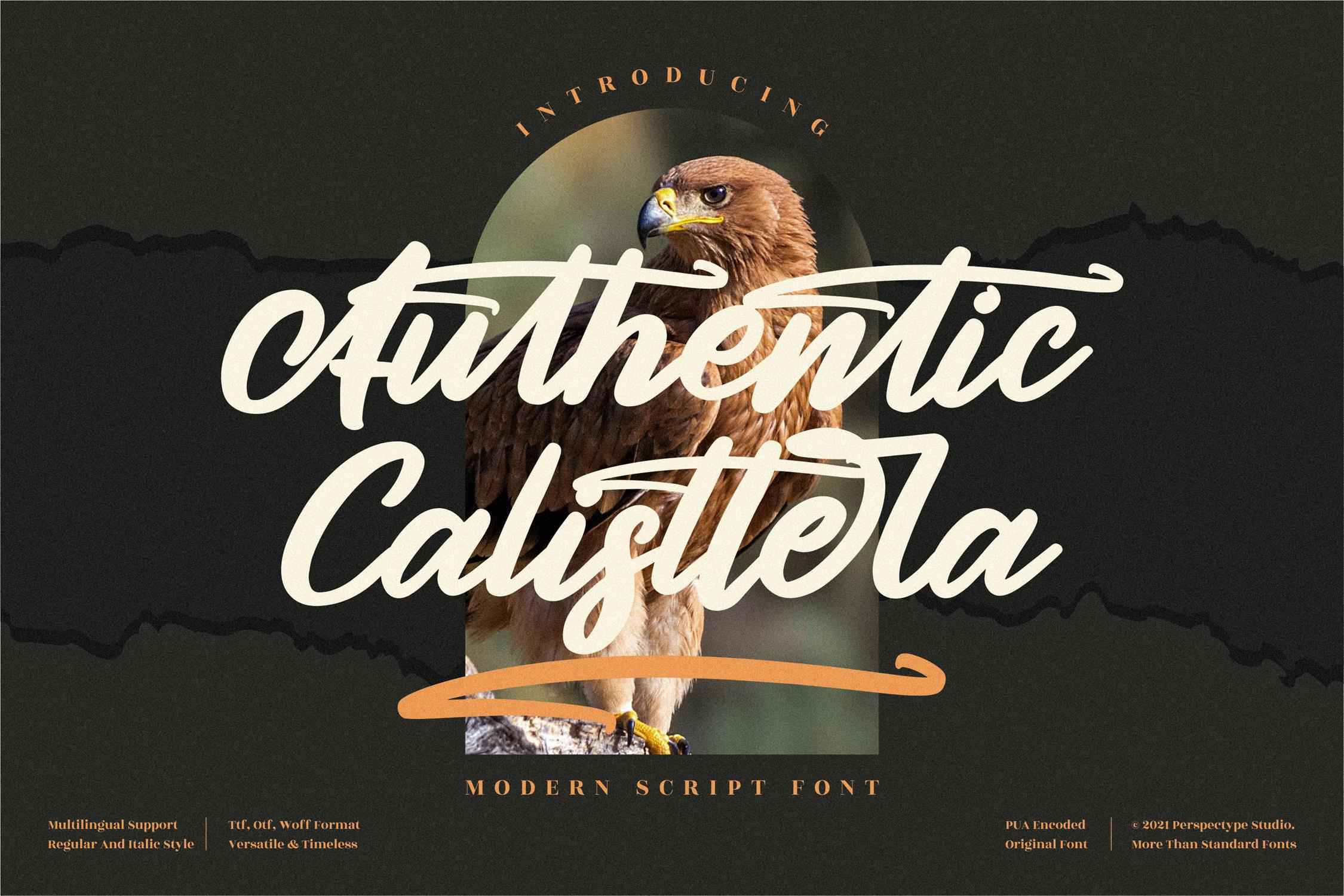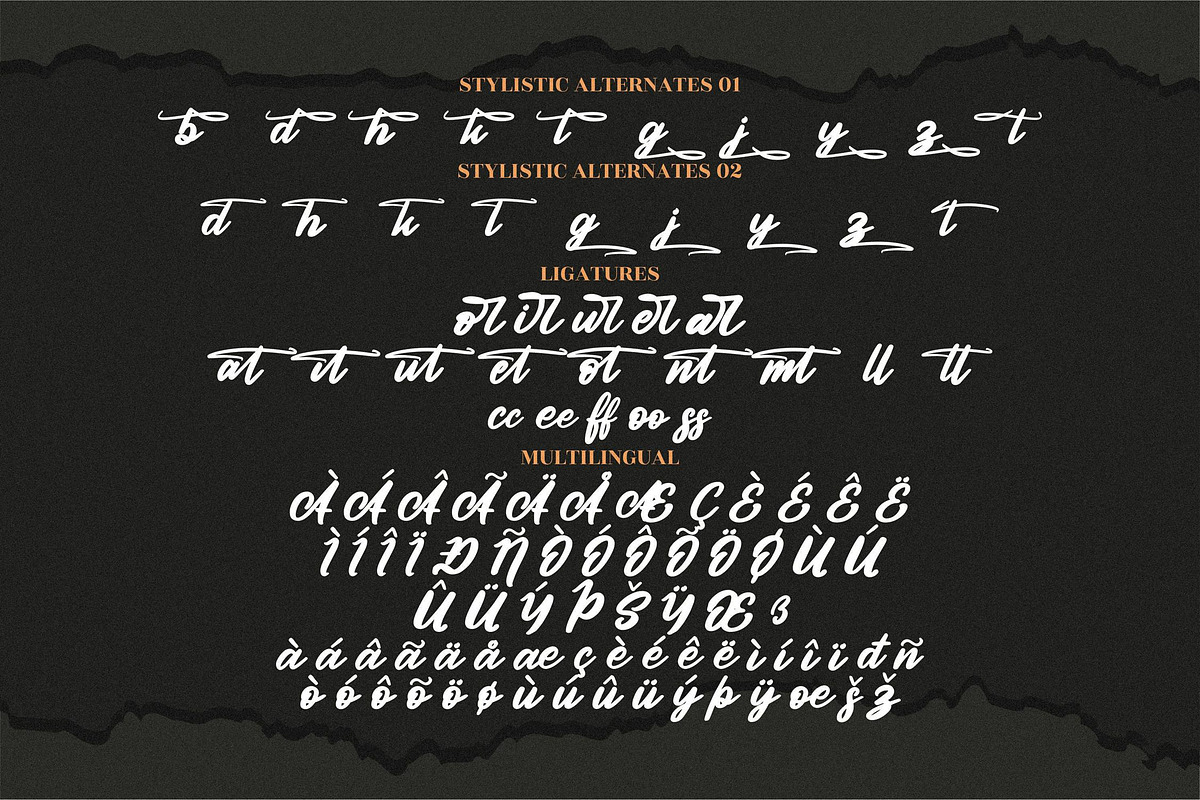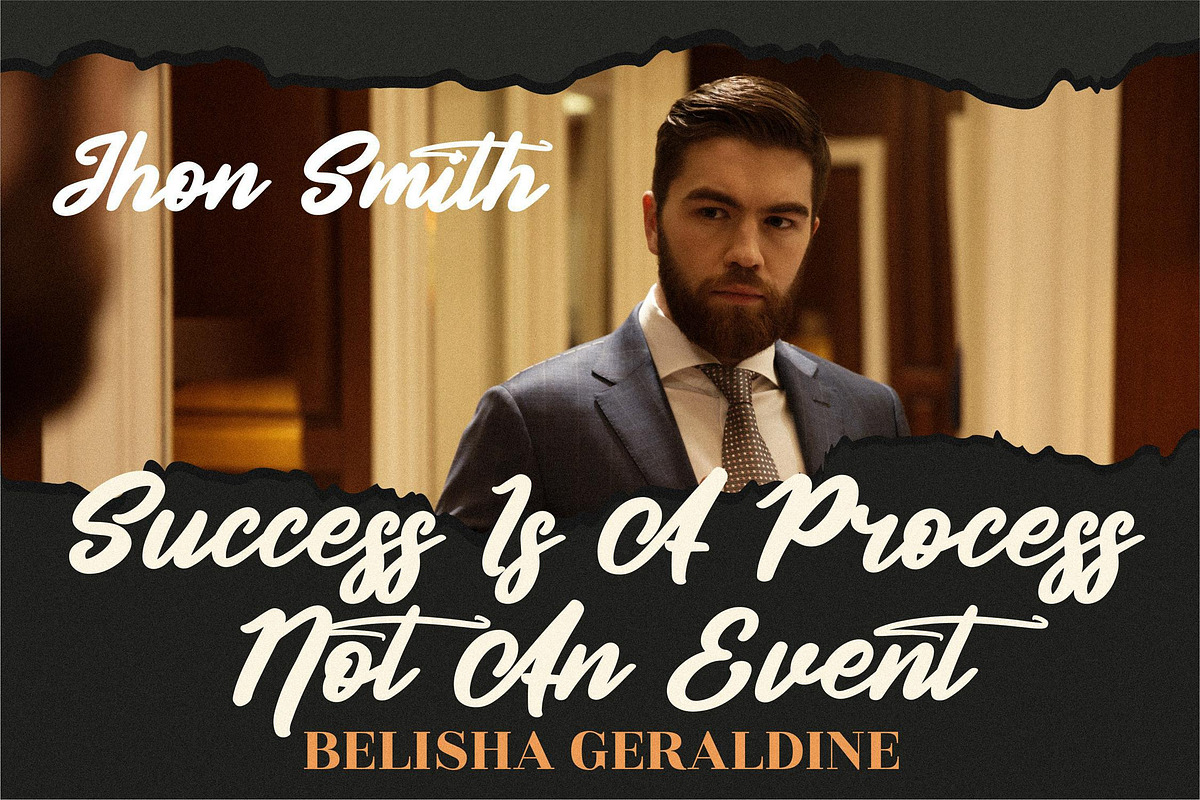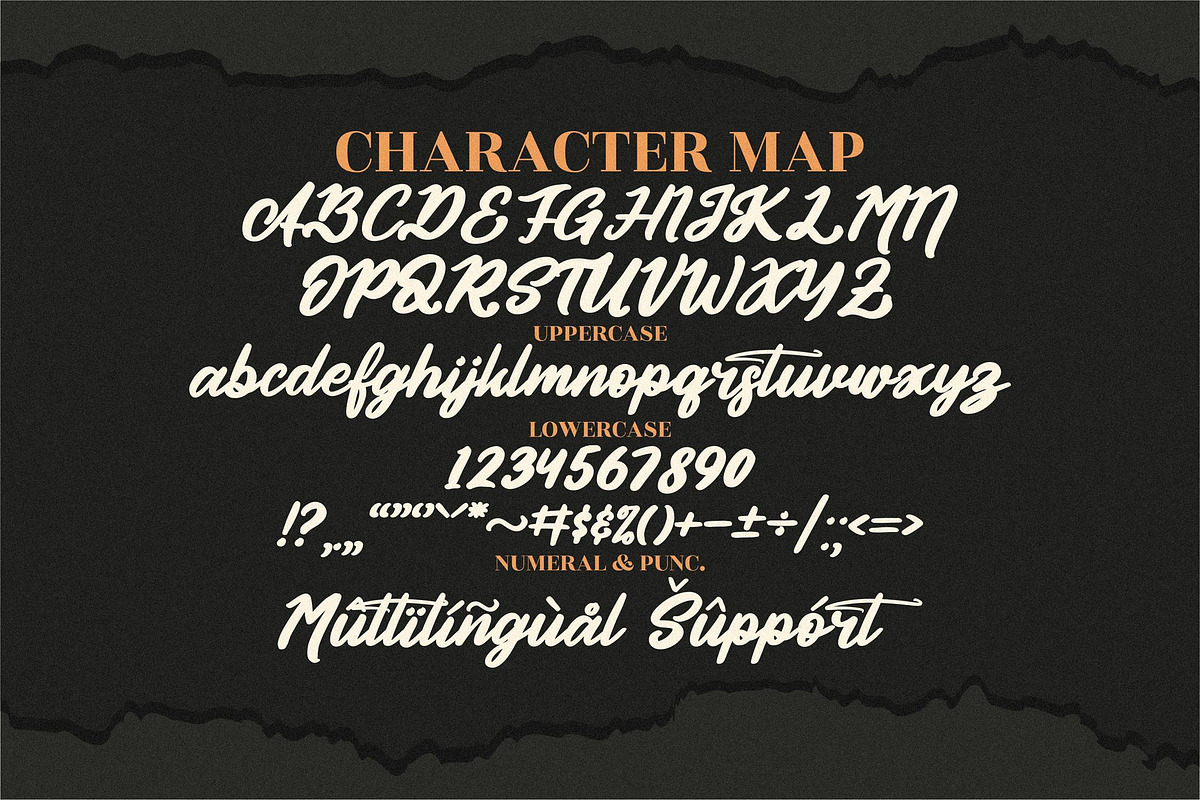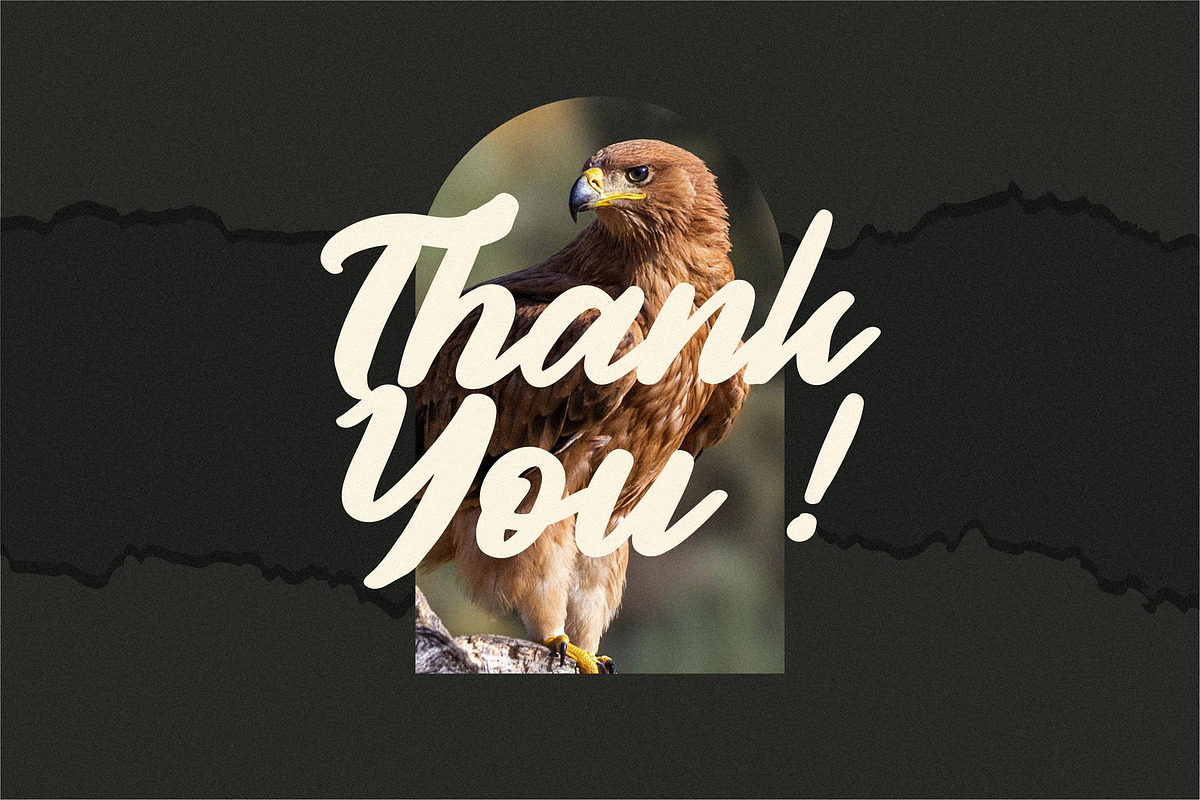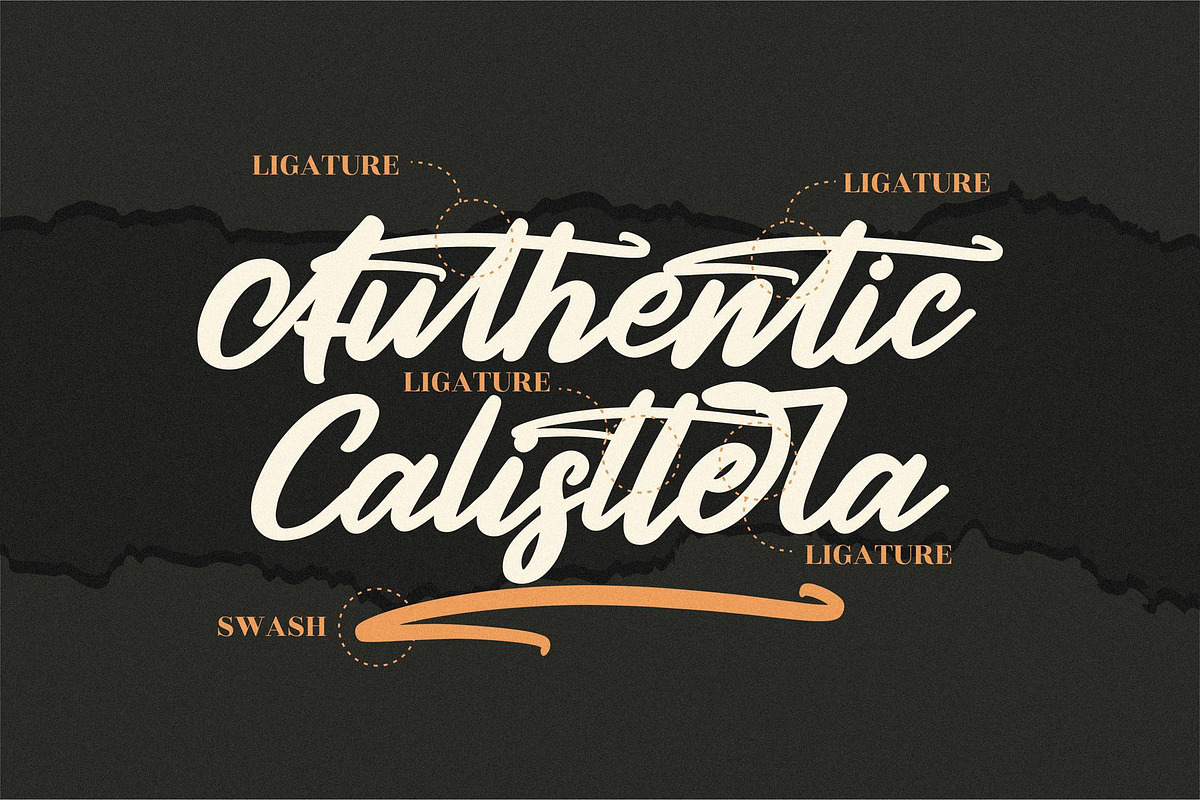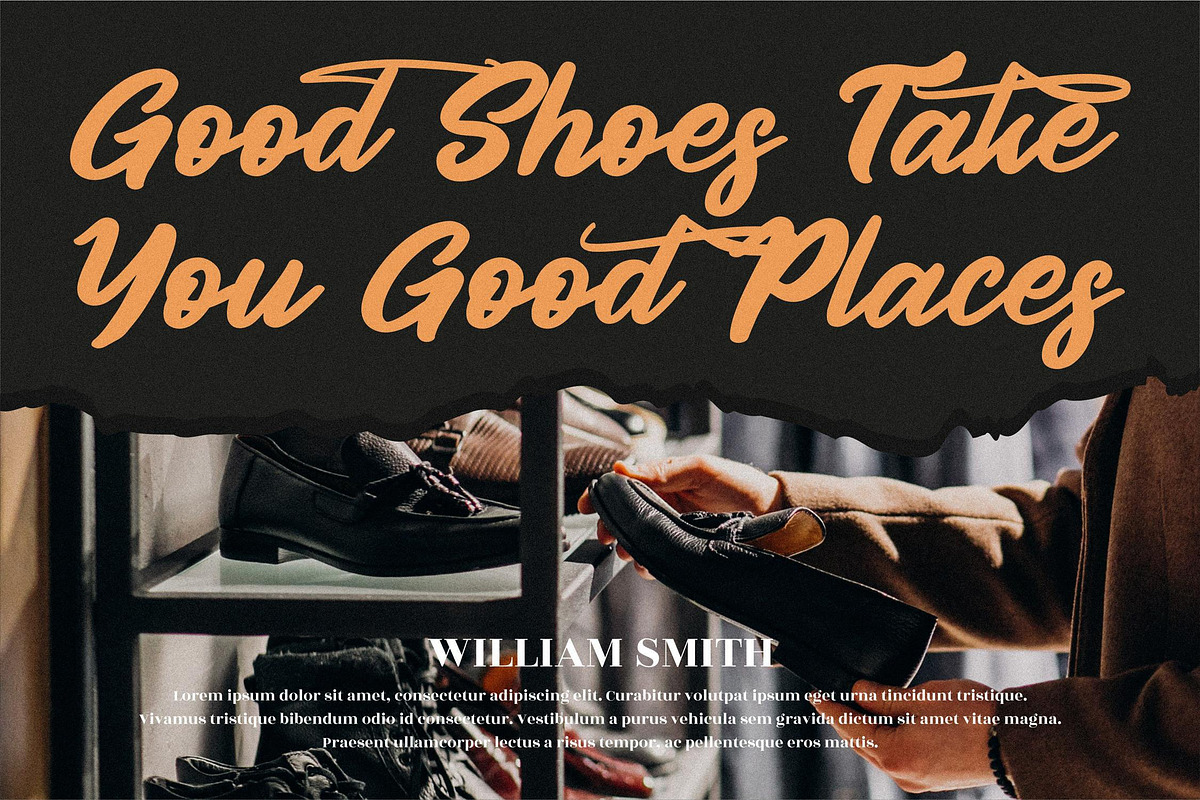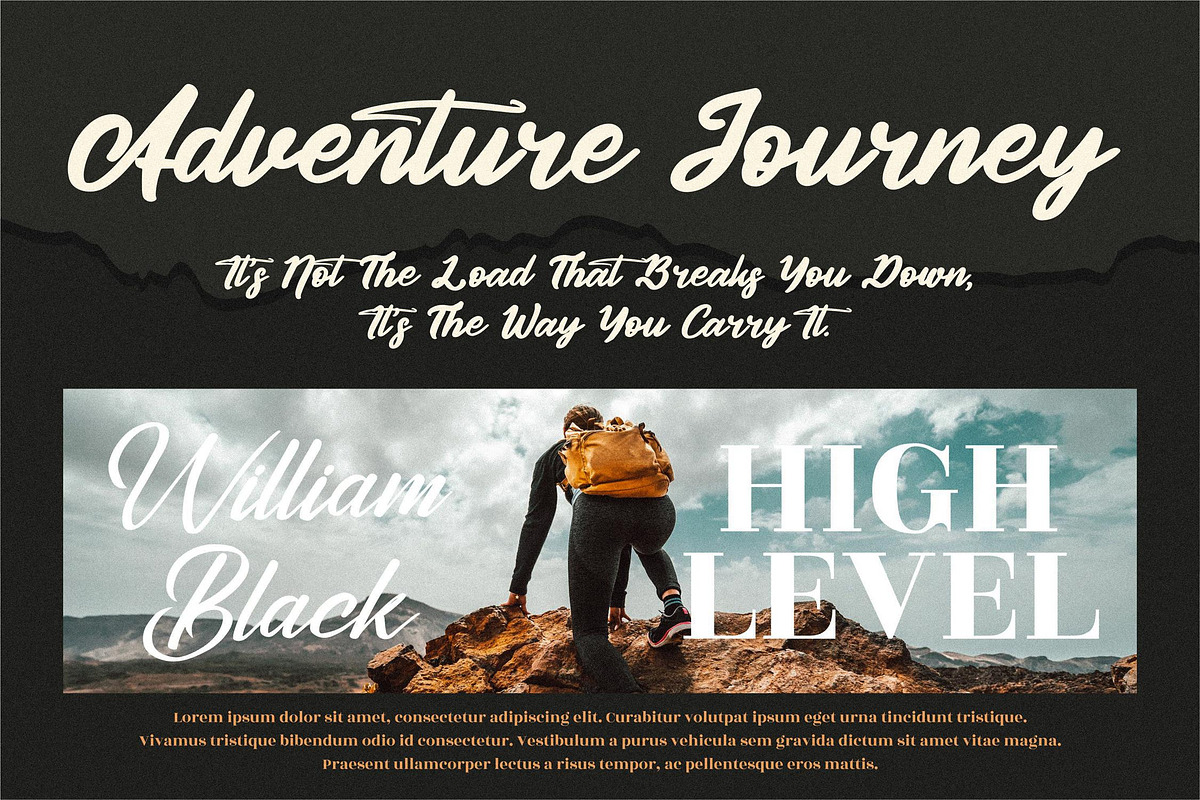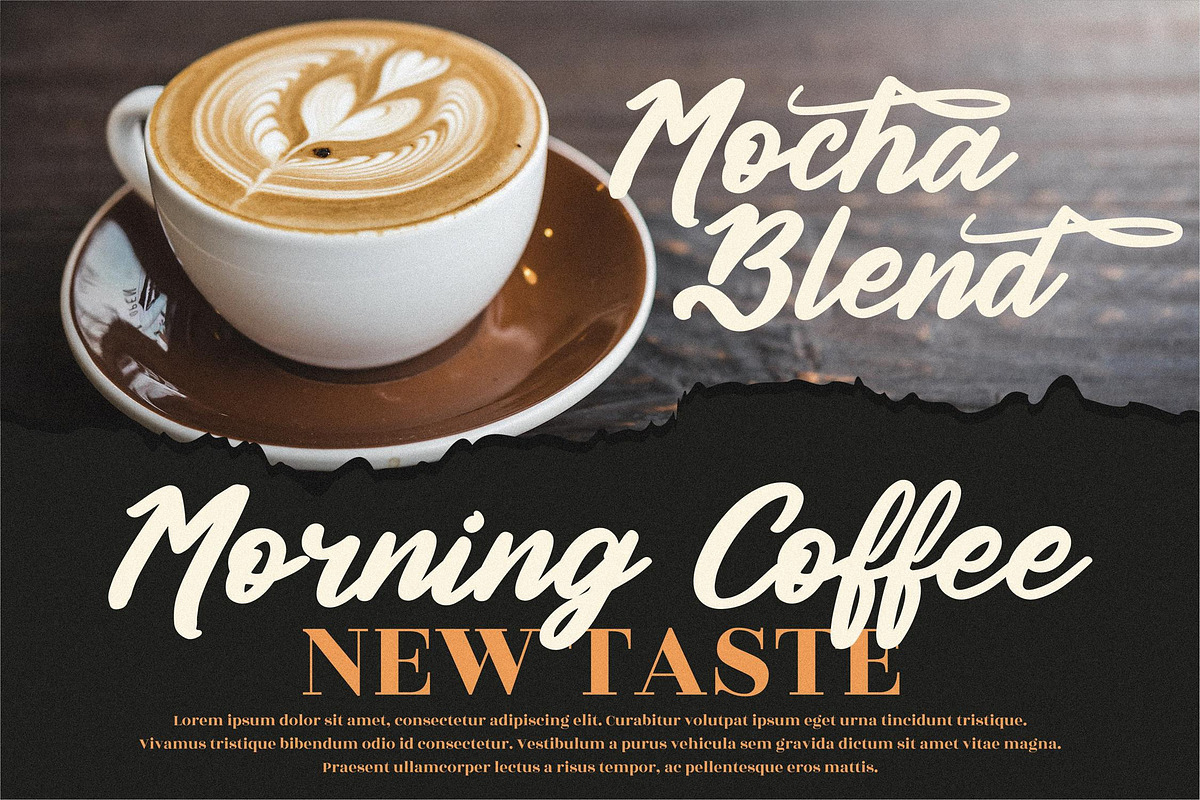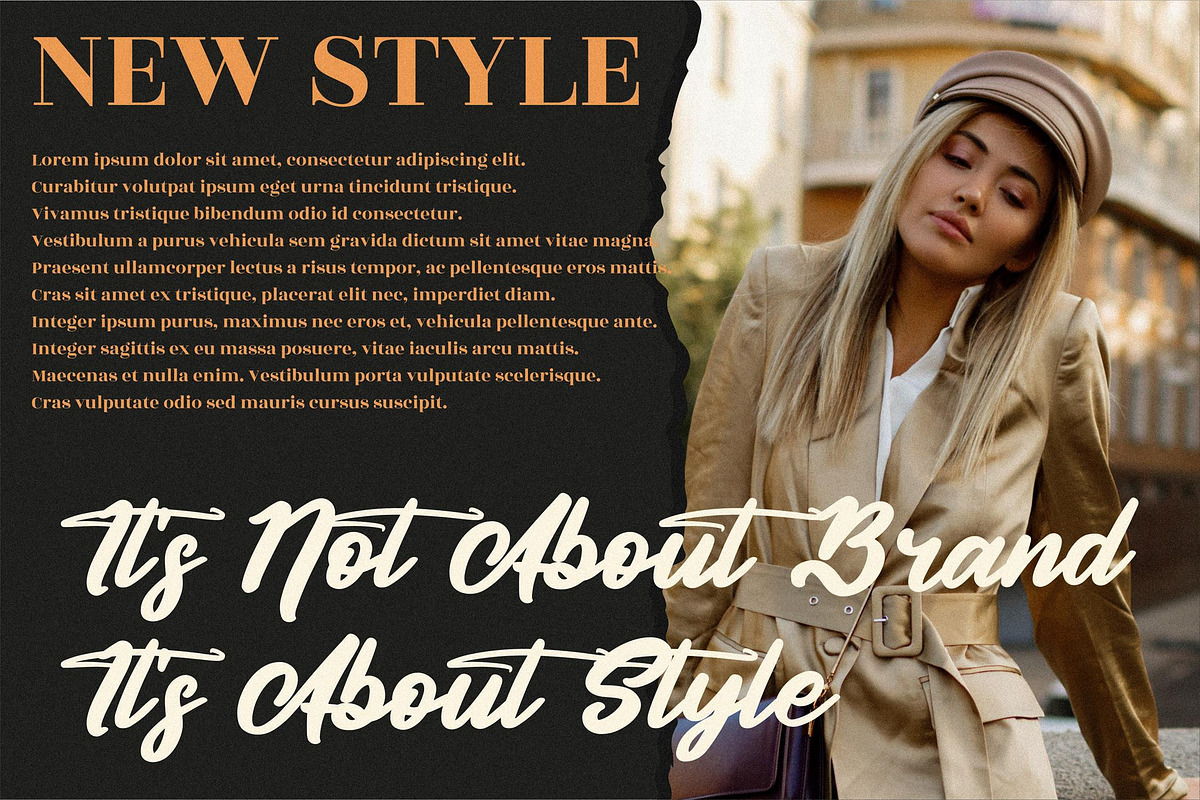
Authentic Calisttera Script Font LS
Hi ladies & gentlemen, this is one of our fonts suitable to complement your digital and printed creative products. This font is perfect for posters, social media posts, branding, personal projects, etc.